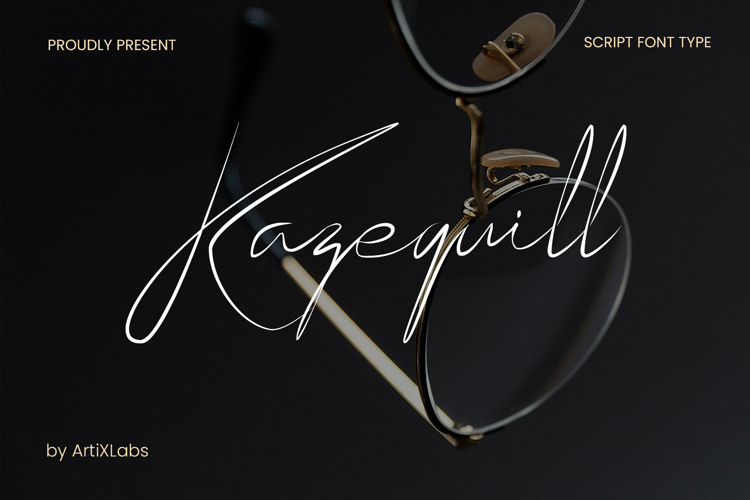
Kazequill Thin Stroke Signature Script Font
Script Style
Kazequill is a modern luxury signature font with graceful strokes and minimalist elegance. Designed to elevate branding and personal identity designs, this script typeface works beautifully for logos, wedding stationery, beauty brands, fashion labels, and premium packaging.
Its natural handwritten flow creates an authentic, personal, and classy feel in both digital and print projects.